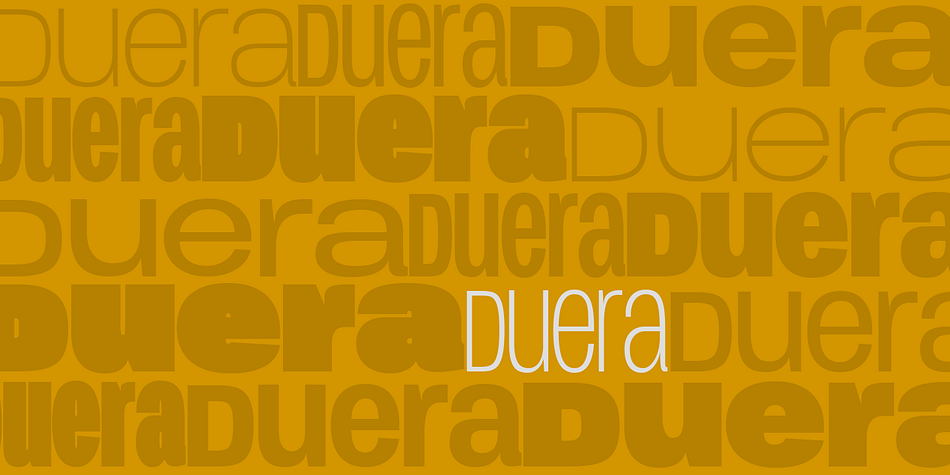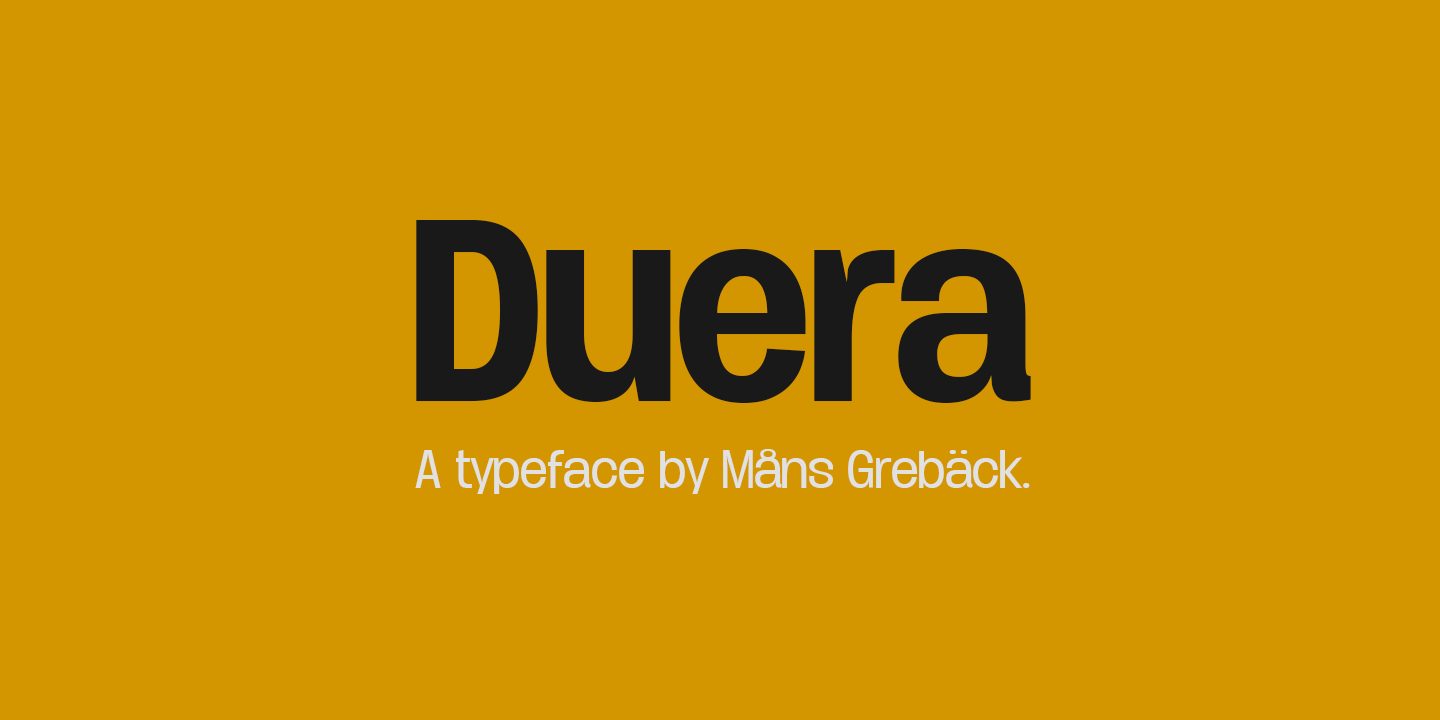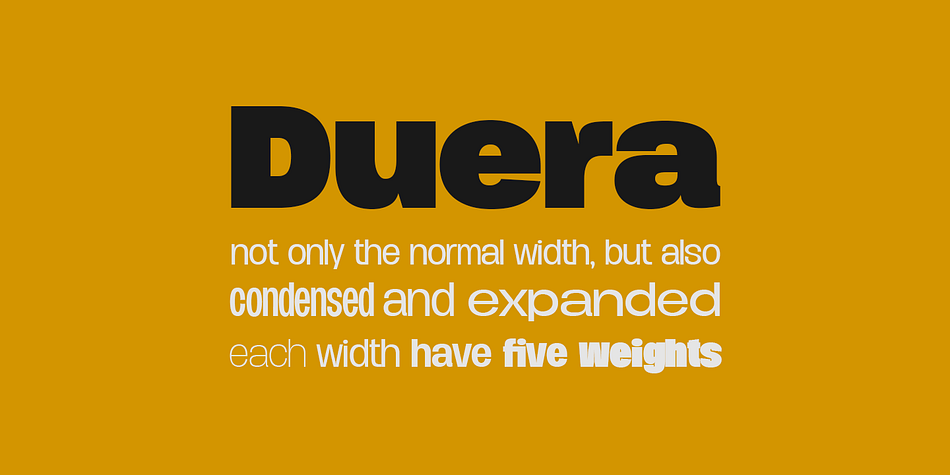
Designed by Måns Grebäck, Duera is a sans serif font family. This typeface has thirty styles and was published by Aring Typeface AB.
Duera is a sans-serif that has the variety to work in all contexts. With different weights and widths, this is a font with 30 styles, ensuring any project a readable and reliable font.